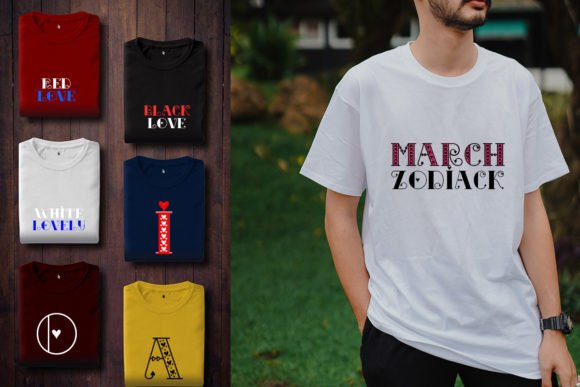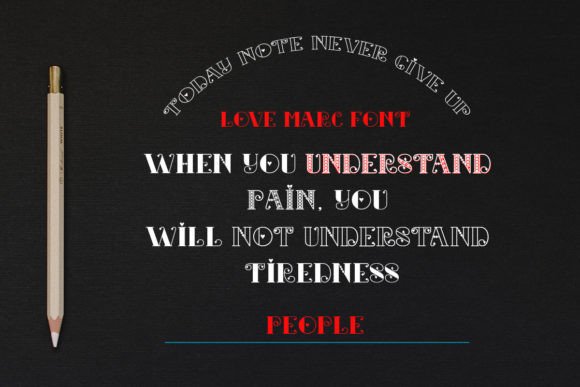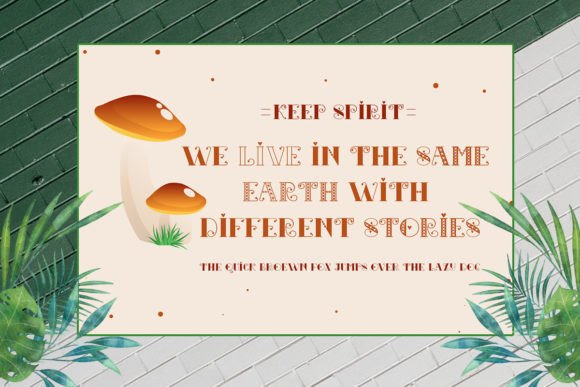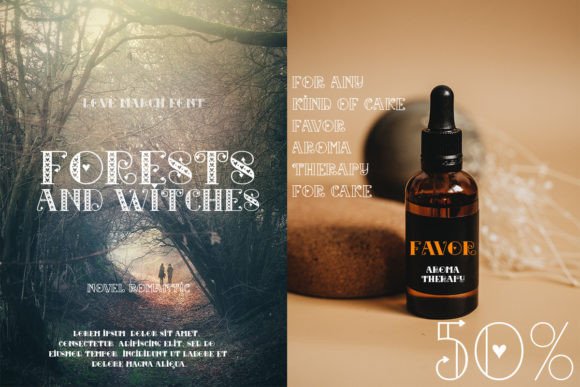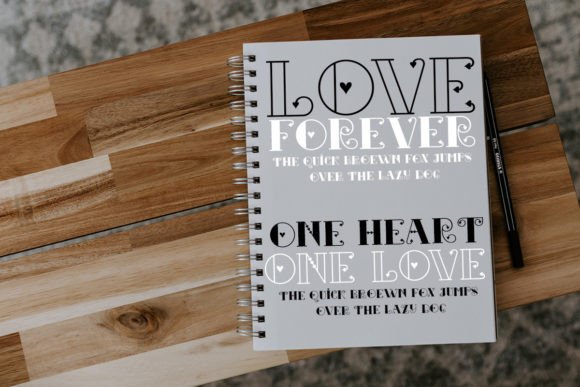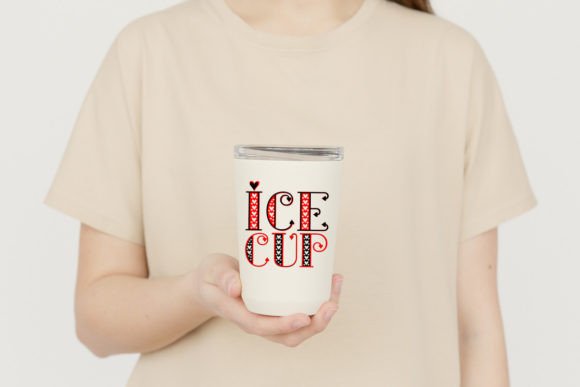
Introduction to Love March Font
Have you ever stared at a blank page, wondering how to convey the essence of a beautiful idea in a single word? For designers, this is a familiar struggle. But what if you had the perfect tool to bring your creative vision to life? Enter the stunning Love March Font, a masterpiece of typography that’s sure to captivate your audience.
With its bold, artistic strokes and delicate embellishments, the Love March Font is a design resource that will elevate your creative project to new heights. Whether you’re working on a free download, a high-quality branding campaign, or a transparent background design, this lovely font will add a touch of style and sophistication to any project.
Key Features of Love March Font
- High-quality design resource ideal for creative projects, including invitations, greeting cards, and social media graphics.
- Includes a range of font styles and sizes, making it suitable for various design needs, from small text to large headings.
- Designed with a modern and playful aesthetic, perfect for adding a touch of whimsy to any creative project.
Honest Review: Love March Font
I recently had the chance to work with the Love March Font, and I must say it’s a beautiful addition to any design project. This free download is perfect for designers looking for a high-quality font to use in their creative projects.
What works well is the font’s versatility. It comes in a variety of styles and weights, making it easy to customize to fit your design needs. The Love March Font also features a transparent background, which is ideal for designing logos or other graphics that require a clean and simple look.
- ✨ Versatile font with various styles and weights
- ✨ Transparent background for clean designs
Overall, I’m impressed with the Love March Font. It’s a great design resource for anyone looking for a high-quality font to use in their creative projects. With its versatility and transparent background, it’s perfect for logos, graphics, and more.
Tips for Getting the Most Out of Love March Font
For best results, use the Love March Font on a transparent background to ensure maximum visibility. Experiment with different font sizes and styles to create a unique and eye-catching design.
The Love March Font is ideal for creative projects, such as posters, flyers, and social media graphics. Its high-quality design and transparent background make it perfect for use in a variety of applications, from design to marketing.